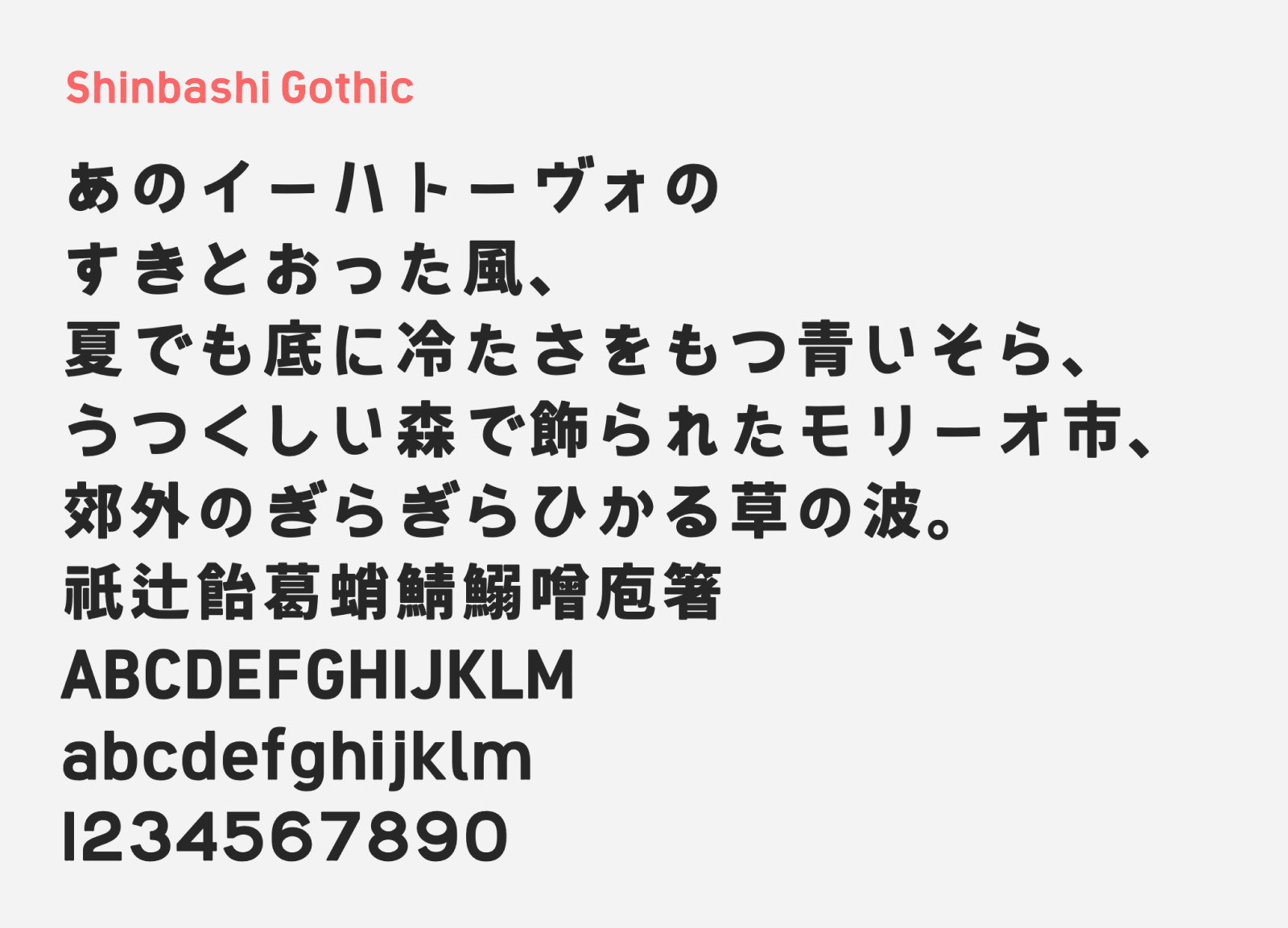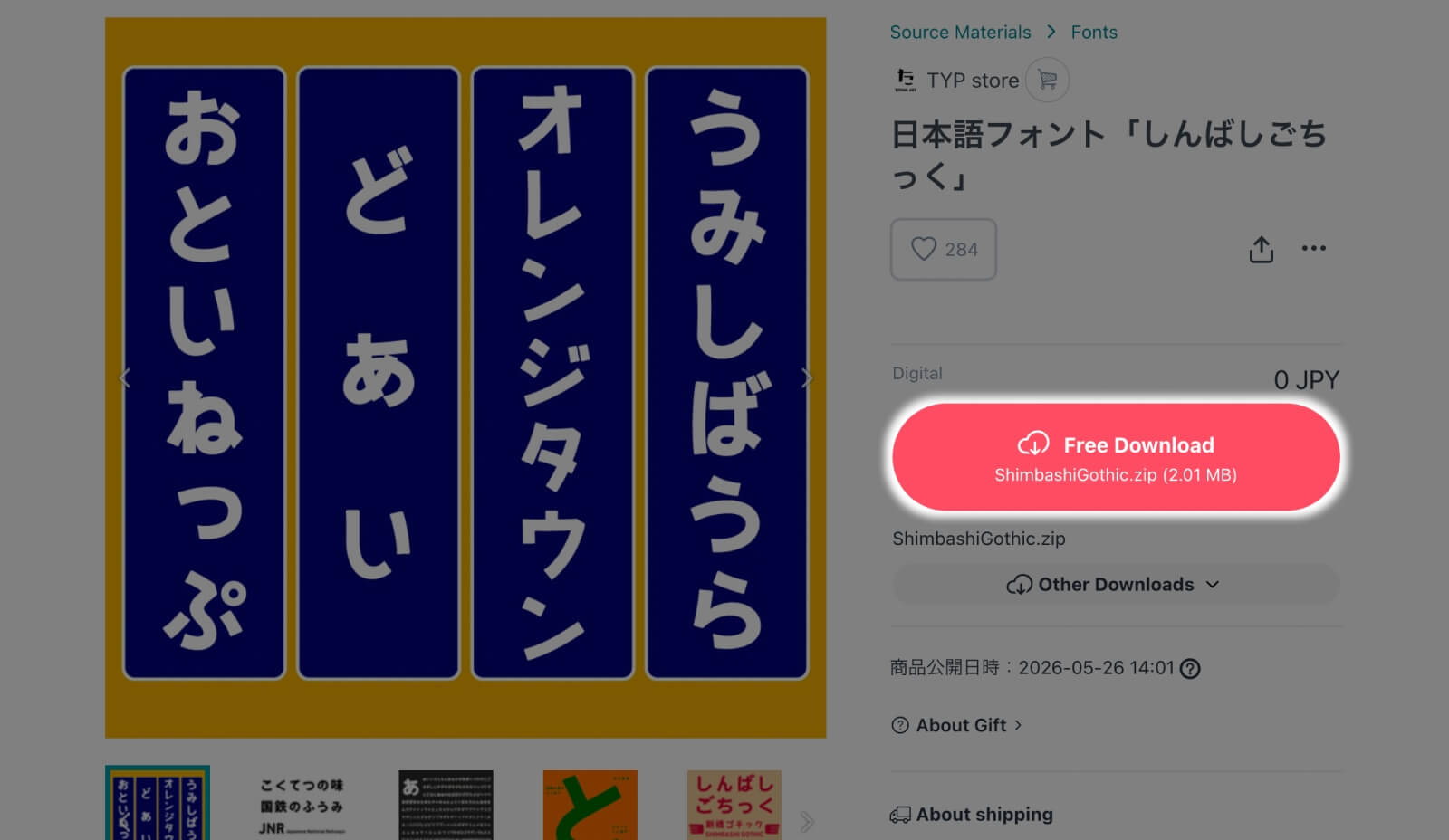
Shinbashi Gothic
Shinbashi Gothic (しんばしごちっく) is a free Japanese rounded gothic font created by Typingart & Co. It was created based on Source Han Sans (源ノ角ゴシック) with a meaningful modification: the corners of the kanji characters have been rounded off, giving the typeface a softer, more approachable feel while preserving Source Han Sans’s solid structural foundation. Then the hiragana, katakana, alphanumerics, and select symbols are entirely custom glyphs drawn by Typingart & Co. themselves.
The result is a gothic typeface that feels simultaneously grounded and friendly. Source Han Sans is known for being clean, neutral, and highly legible — reliable in the best sense of the word. Shinbashi Gothic keeps all of that and adds a warmth that the original doesn’t have. The rounded corners on the kanji subtly loosen the overall texture of text set in this font, making it feel less institutional and more inviting. Shinbashi Gothic supports up to JIS Level 1 and 2 characters — solid coverage for most everyday Japanese text needs. The font is released under SIL Open Font License 1.1, therefore you can use this on commercial projects.
- Hiragana and Katakana
- Kanji (JIS Level 1 and 2)
- Alphanumerics
- Latin script
- Symbols and Punctuations